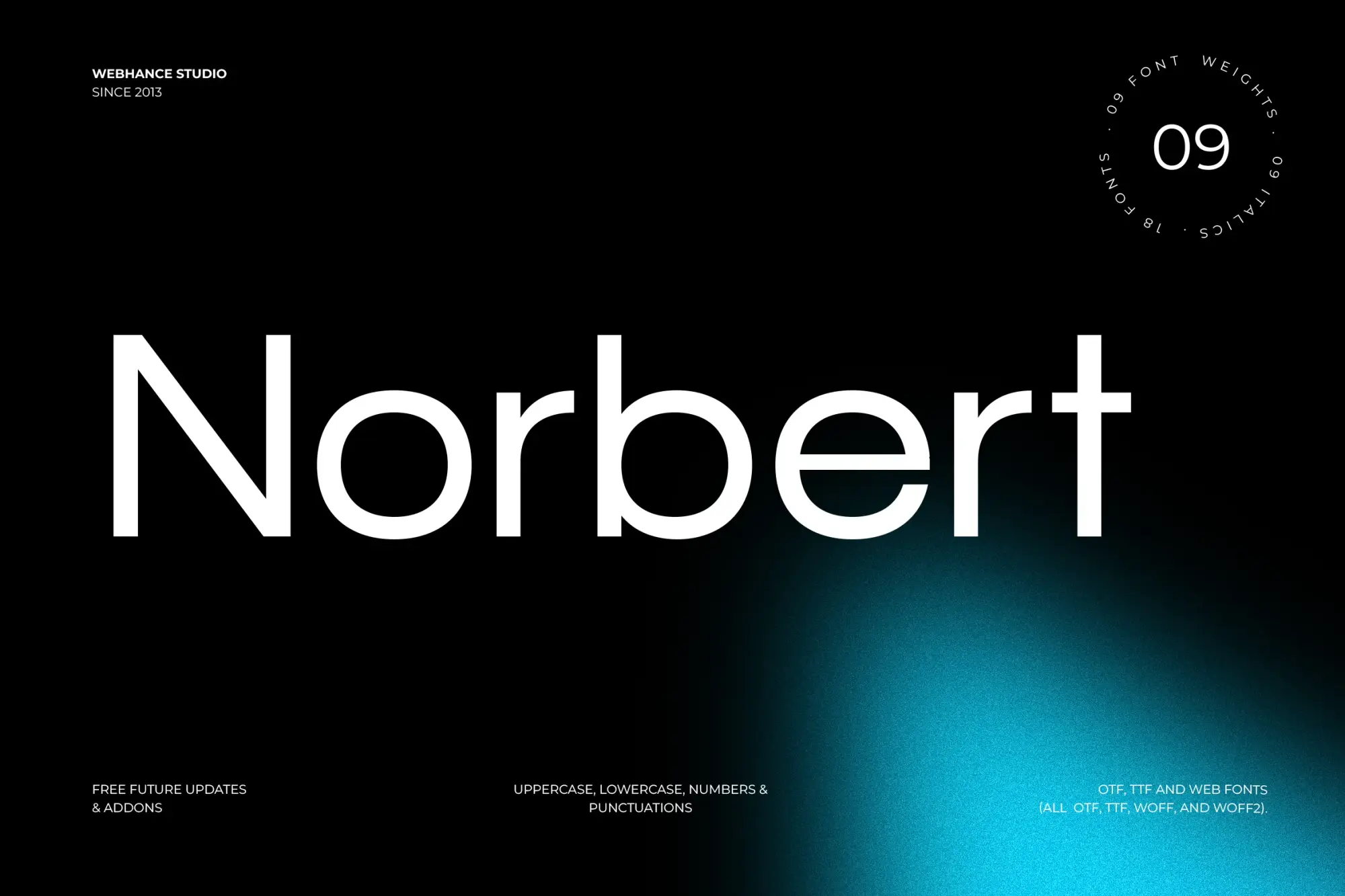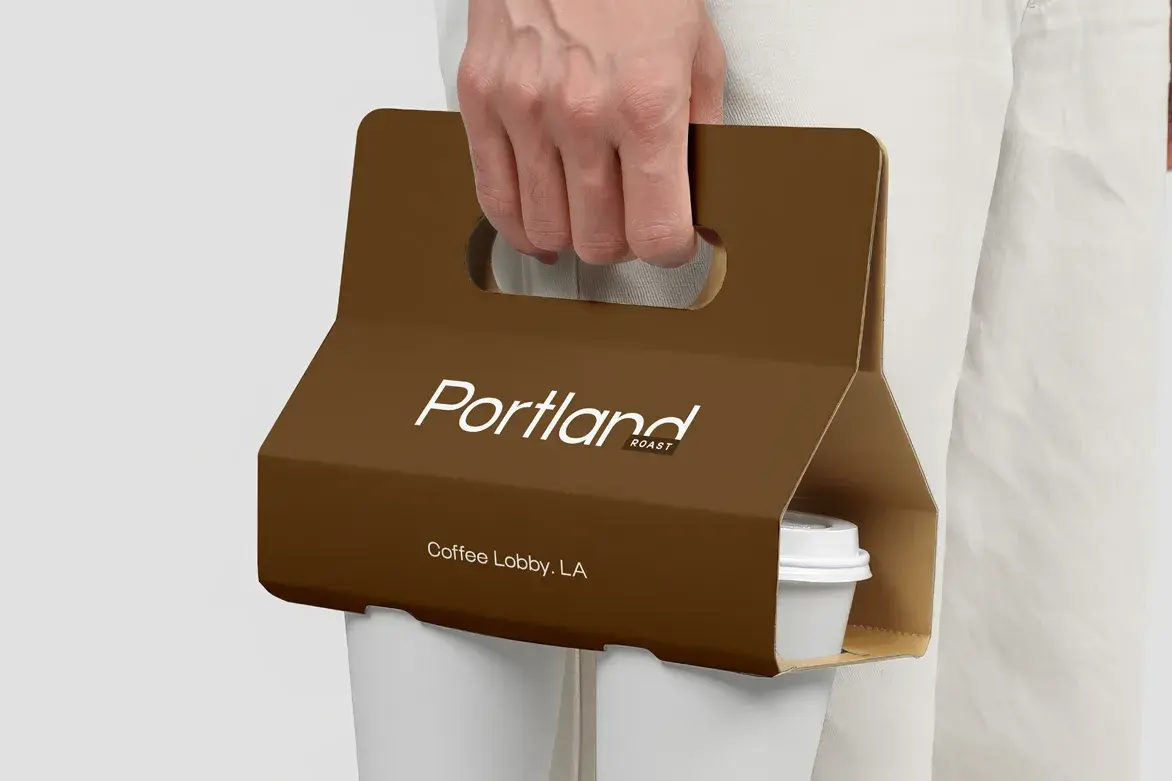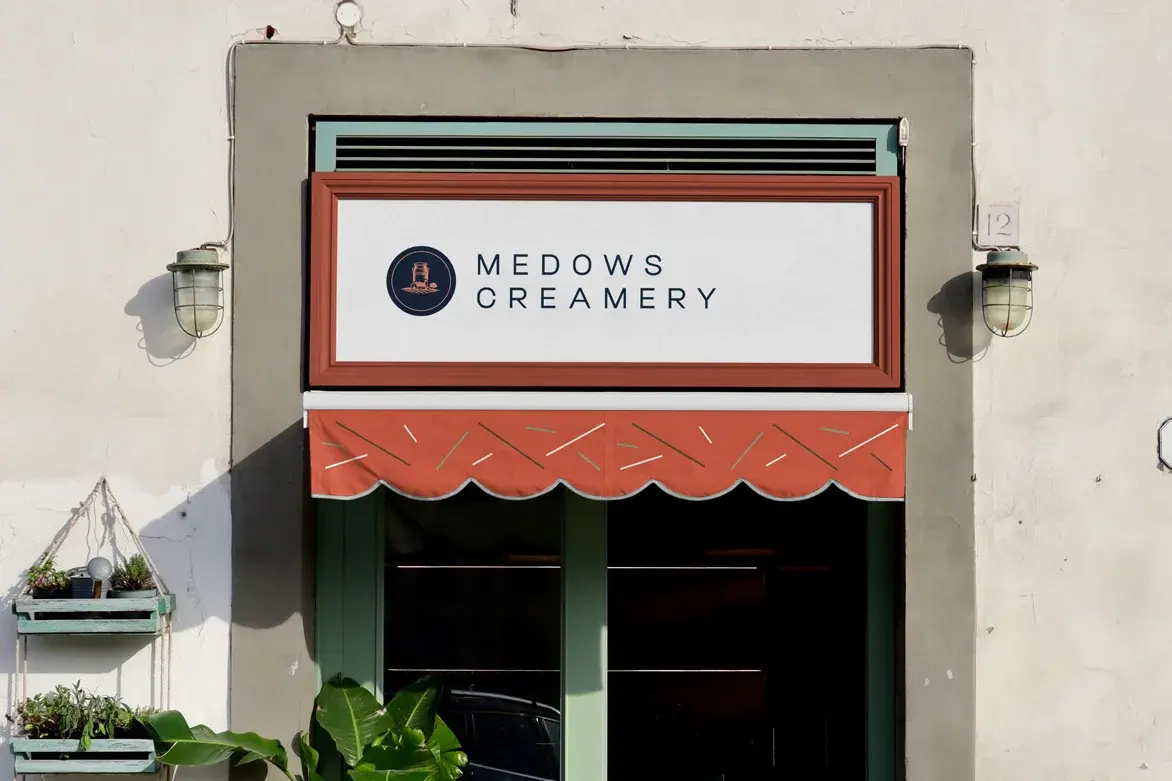
Norbert
Overview
Norbert is a modern sans-serif font that embodies minimalism and elegance. Its clean lines and geometric shapes make it an excellent choice for a variety of design projects, from branding to social media graphics. Ideal for both print and digital use, Norbert enhances readability while maintaining a stylish presence.
Design Traits
- Geometric shapes provide a contemporary feel.
- Balanced spacing ensures optimal readability.
- Elegant tone suitable for upscale branding.
- Versatile for various design contexts, including UI/UX.
Key Features
- Multiple weights: Heavy, Thin, Regular.
- Extensive character support for multilingual projects.
- Optimized for print and screen performance.
Best Use Cases
- Eye-catching posters that demand attention.
- Social media graphics for platforms like Instagram.
- Clean UI/UX designs that enhance user experience.
- Elegant branding projects for modern businesses.
- Logos that require a distinctive yet minimal look.
Why Designers Choose Norbert
- Offers a modern and minimal aesthetic.
- Enhances visual appeal across all media.
- Easy to read, ensuring message clarity.
- Versatile for various applications and styles.
- Supports a wide range of design projects effortlessly.